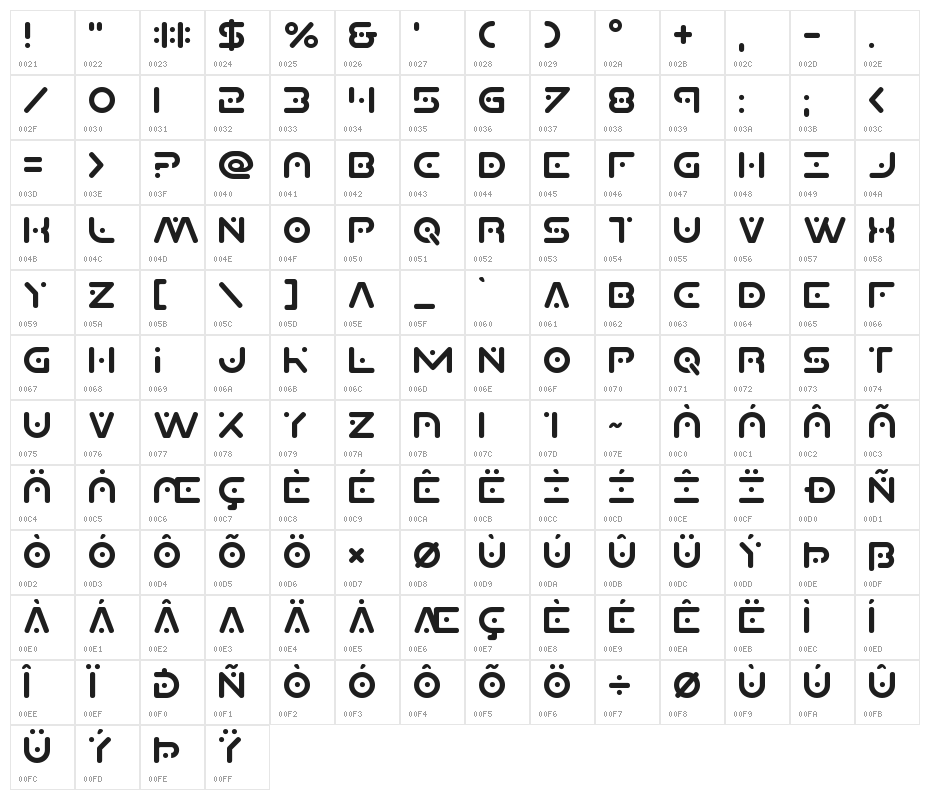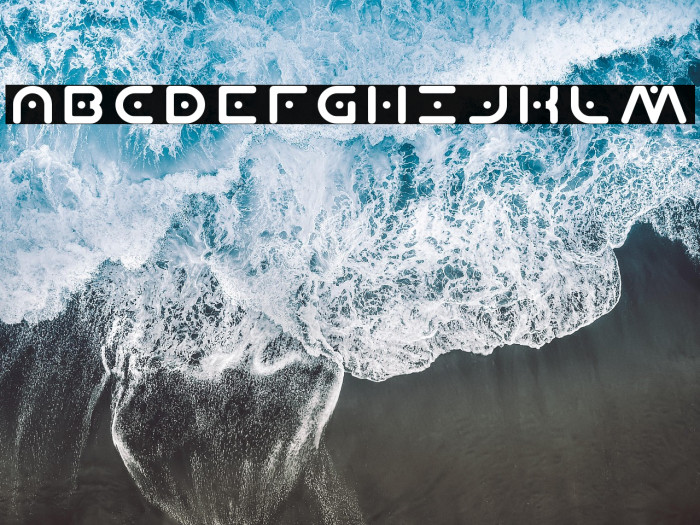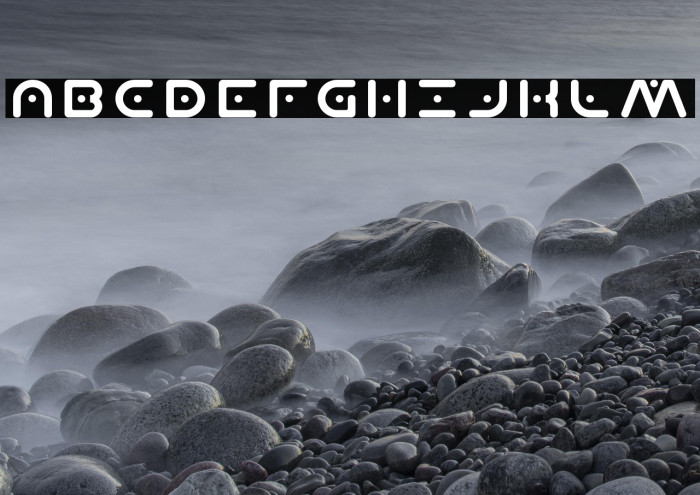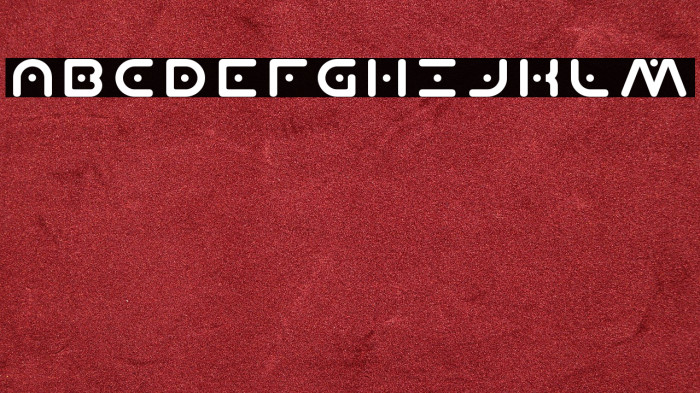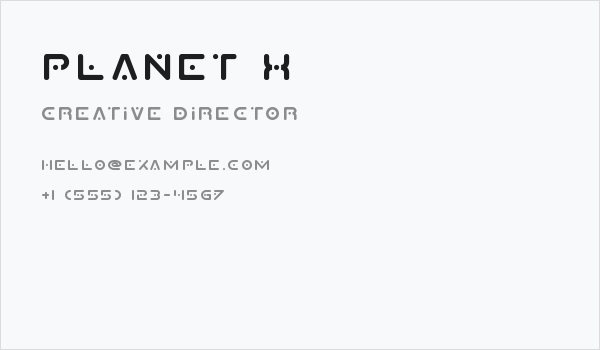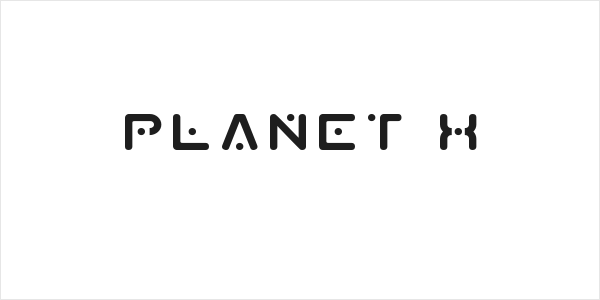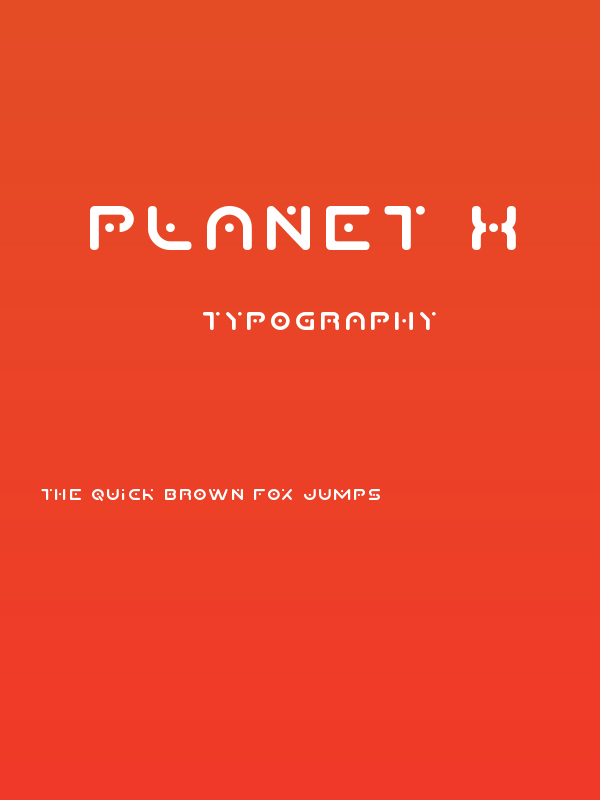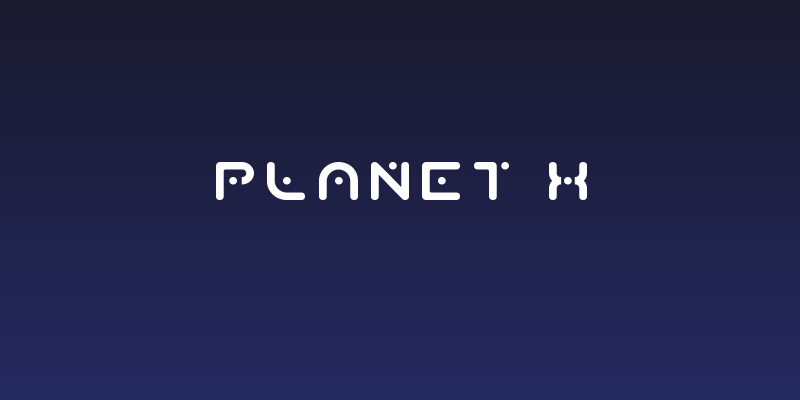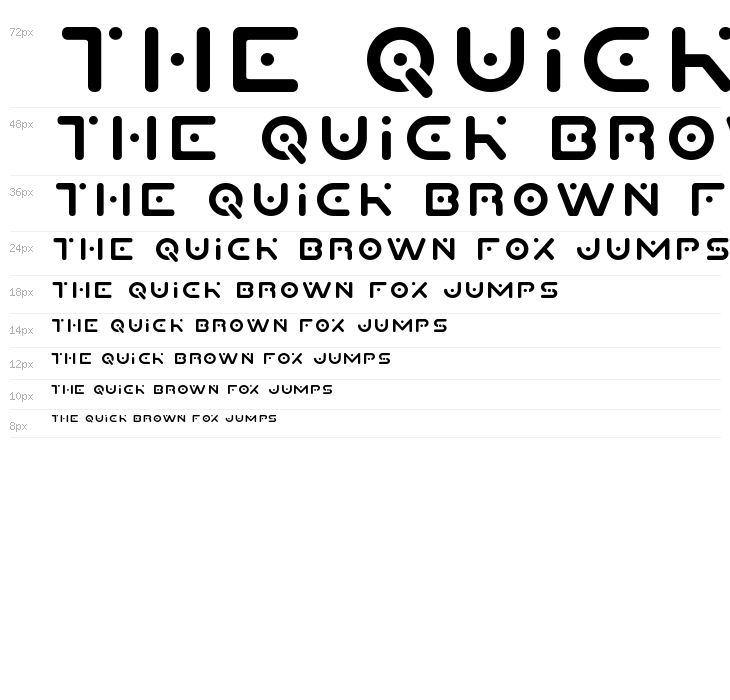
Planet X Font
Planet X Description
This font features a futuristic and geometric design, characterized by its bold and rounded letterforms. Each character is constructed with a combination of solid lines and circular cutouts, giving it a unique, space-age appearance. The uniformity in the design creates a cohesive look, while the circular elements add a playful touch. The font maintains a consistent weight throughout, ensuring readability while still offering a distinctive style. Its modern aesthetic makes it suitable for projects that require a contemporary and innovative feel.
| Proposed Projects | Ideal for sci-fi themed designs, technology branding, video game titles, and innovative product packaging. |